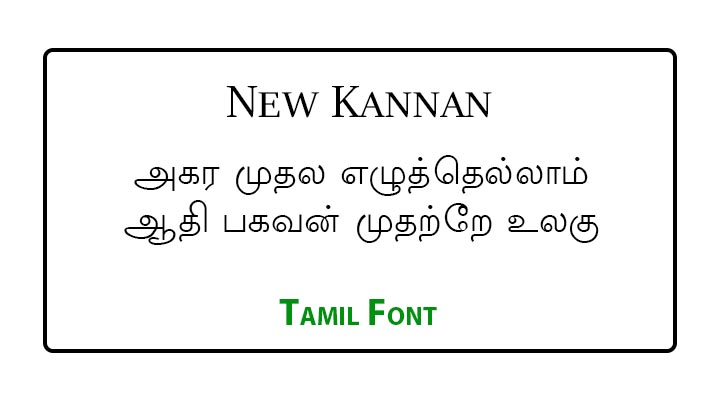
New Kannan Tamil Font Free Download. New Kannan is one of the Tamil Regular Font. Specially used in publications. Here you can download Font and Keyboard Layout for Free. This font is widely used by Tamil Nadu and Sri Lankan Tamil Peoples. The following font was design and generated by by Fontograpgher 3.5.
New Kannan Tamil Font Preview